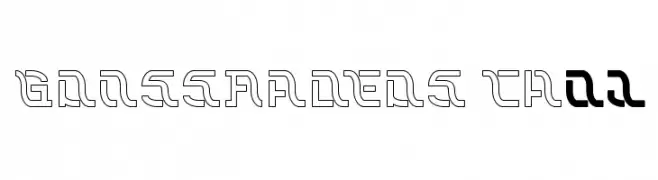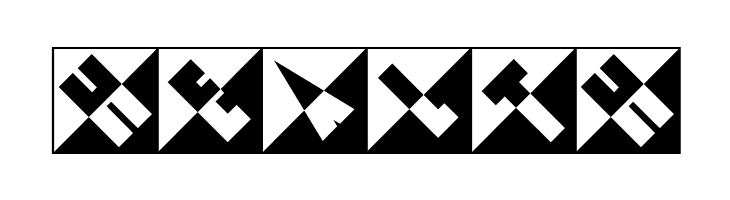
A bold, modern font with high contrast and elegant, condensed uppercase letters.
( Fonts by SDFonts - Ritzy )
A bold, geometric font with strong, thick strokes and high contrast.
( Fonts by www.fugit-tempus.de )
A bold, modern serif font with high contrast and sharp serifs.
( Fonts by Nick Curtis - www.nicksfonts.com )
A bold, geometric, and decorative font with angular shapes and high contrast.
( Fonts by www.misprintedtype.com )
An elegant script font with intricate, flowing lines and high contrast strokes.